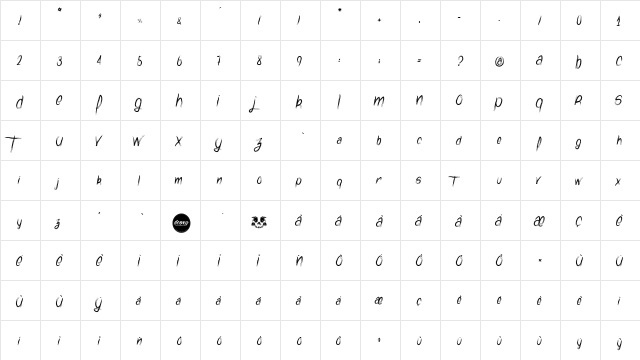
Watch Out Regular
Design Context for Watch Out Typeface
Watch Out is a composed and adaptable typeface that performs quietly and consistently across a wide range of design contexts.
Pro Tip: Pair Watch Out with a font of contrasting weight or personality to build a more expressive typographic hierarchy.